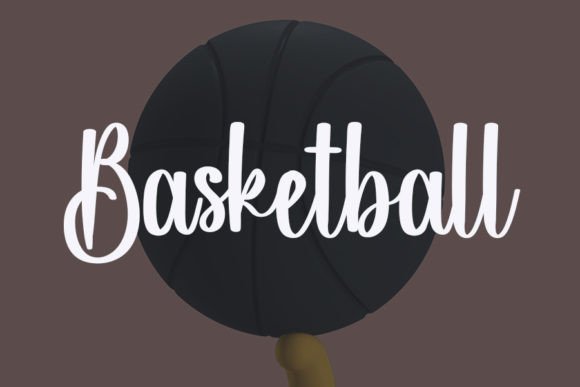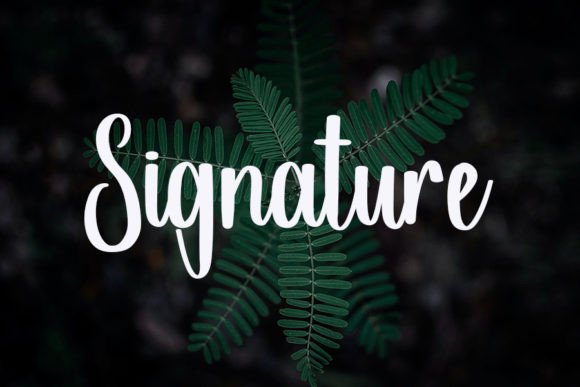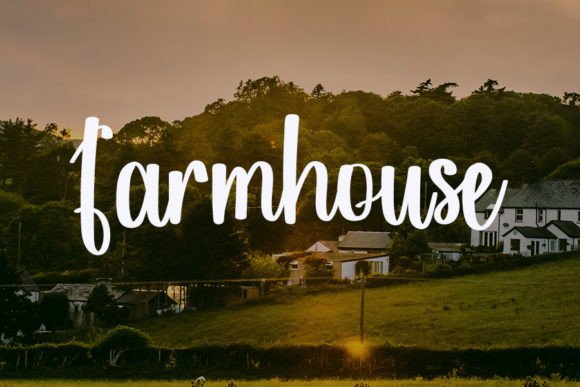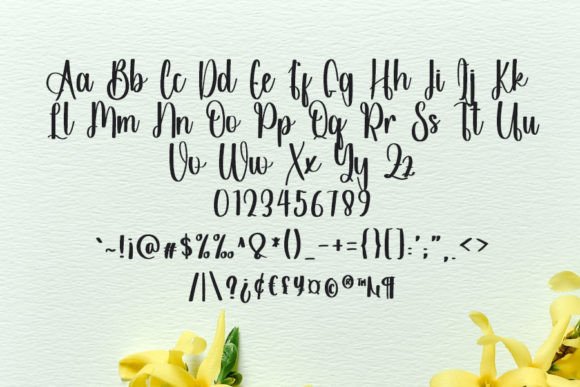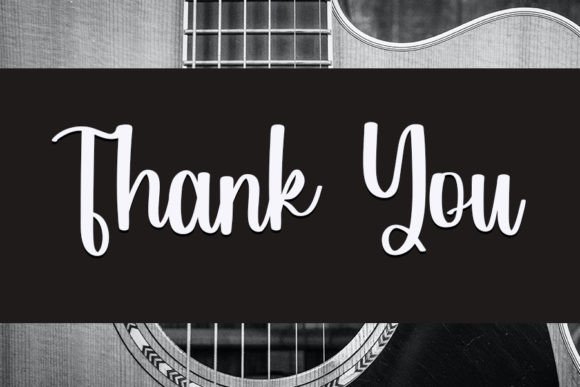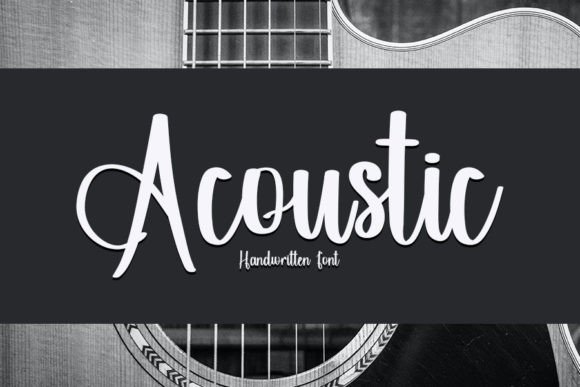
The Magic of Acoustic Font: Elevate Your Holiday Designs
Ah, the holiday season is upon us, and you know what that means – a flurry of design projects to make your clients (or your own) festive creations shine. I’m sure we’ve all been there: stuck in a design rut, searching for that perfect font to bring our vision to life. I recall working on a holiday card project last year, and my designer brain was screaming for something more… something special. That’s when I stumbled upon Acoustic Font, and let me tell you, it was love at first sight!
So, what makes Acoustic Font so special? Here are a few things that have won me over:
- ✨ Simple yet elegant: Acoustic Font strikes the perfect balance between understated and sophisticated.
- ✅ Versatile: This font can effortlessly adapt to various design styles, from rustic to modern.
- 🎉 Holiday cheer: Its bold and playful vibe makes it perfect for holiday designs.
Of course, no font is perfect, and Acoustic Font has a few minor quirks:
- 🤔 Limited multilingual support: While it covers the basics, it might not be the best choice for projects requiring extensive language support.
- ⚠️ Some glyphs may require manual adjustment: Depending on your design, you might need to tweak certain glyphs for optimal spacing.
The Story Behind Acoustic Font
Acoustic Font was designed with the intention of creating a simple, yet elegant script font that could be used for a wide range of creative projects. The designer aimed to craft a font that would evoke a sense of warmth and friendliness, while still maintaining a level of sophistication.
| Font Name | Acoustic Font |
| Author | NYA Letter |
| What makes Acoustic Font suitable for holiday designs? | Its bold and playful vibe, combined with its elegant and simple design, makes it perfect for adding a touch of festive cheer to your creations. |
| Is Acoustic Font available in multiple languages? | While Acoustic Font covers the basics, its language support might be limited. Be sure to check the font’s specifications to ensure it meets your language requirements. |
In conclusion, Acoustic Font is a versatile and elegant script font that’s perfect for adding a touch of magic to your holiday designs. With its simple yet bold design, it’s sure to level up your creative projects and make them shine.